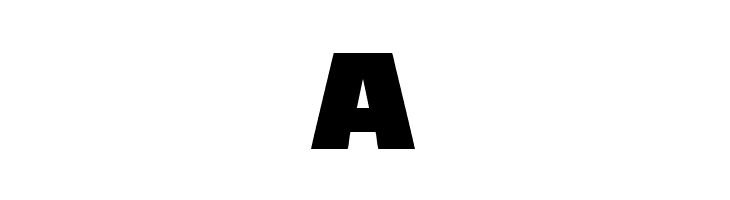
A modern sans-serif font with semi-bold weight and italic style.
A modern, italic sans-serif font with a clean and dynamic style.
A clean, modern sans-serif typeface with excellent readability.
A classic serif font with modern elegance and balanced contrast.
A classic serif typeface with elegant strokes and balanced proportions.
A bold, futuristic font with sharp angles and a dynamic style.
A bold, distressed font with a grunge texture and star pattern.
A playful, handwritten font with rounded, bold characters and a casual style.
A bold, expressive script font with fluid, interconnected strokes.
A modern, geometric sans-serif font with clean lines and uniform thickness.
An ultra-thin, modern font with elongated, sleek characters.
A sleek, modern font with thin, elongated letterforms and a geometric structure.
A modern, geometric font with clean lines and a wide stance.
An elegant, flowing script font with graceful curves and fluid strokes.
A classic serif font with calligraphic influences and elegant, irregular strokes.
An artistic serif outline font with a hand-drawn, elegant style.
A bold, rounded font with a modern and playful style.
A bold, rounded, and italic font with a modern and playful style.
A bold, geometric font with sharp angles and minimal contrast.
A bold, italic font with a dynamic and energetic style.
A bold, geometric font with clean lines and a modern aesthetic.
A sleek, modern italic font with medium contrast and elegant curves.
A bold, geometric font with a modern and powerful aesthetic.
A bold, italicized font with strong, dynamic strokes and a modern aesthetic.
A modern, light sans-serif font with clean lines and balanced proportions.
A sleek, light, and italicized font with a modern and elegant style.
A modern, geometric font with clean lines and uniform stroke width.
A sleek, italicized font with a modern and dynamic style.